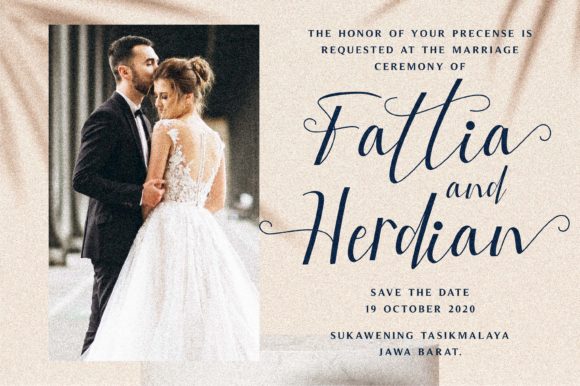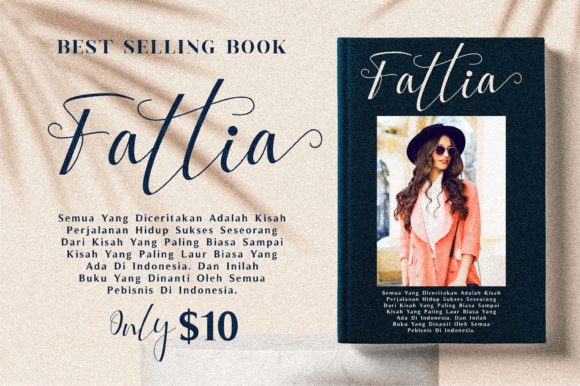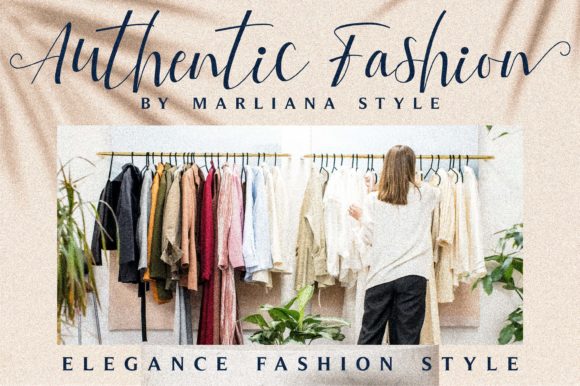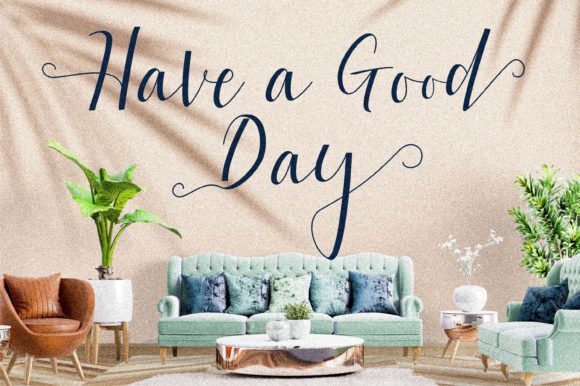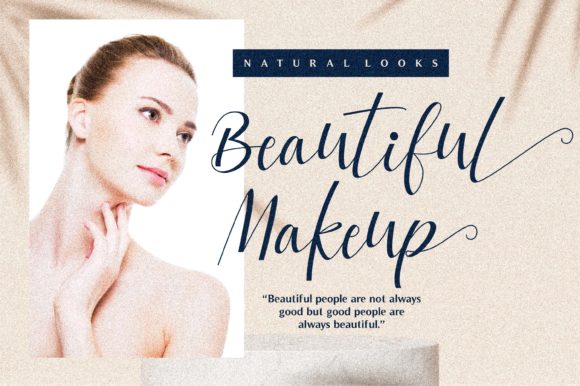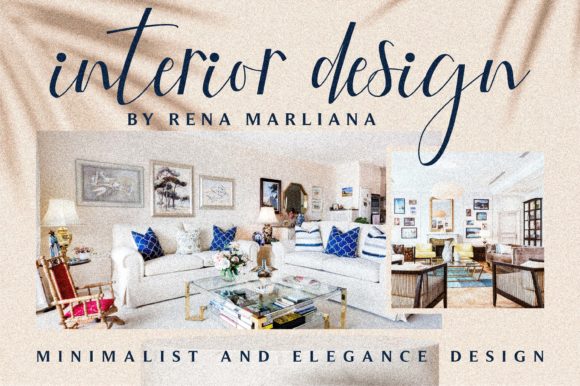
Introduction to Fattia Font
Have you ever stared at a blank page, trying to bring a creative project to life, but struggling to find the perfect font to match your vision? For designers, this is a familiar frustration, and it’s where the Fattia Font comes in – a game-changing solution that will elevate your designs to the next level.
Imagine being able to create stunning, high-quality designs with a customized style that sets you apart from the crowd. With its contemporary atmosphere and impeccable form, inspired by timeless classic calligraphy, the Fattia Font is the perfect design resource for anyone looking to add a touch of sophistication to their work.
Whether you’re working on a wedding invitation, a thank you card, or a greeting card, the Fattia Font is a valuable asset that will make your designs shine. And the best part? It’s PUA encoded, making it easy to access all of the glyphs and swashes with ease, allowing you to create complex designs with a transparent background.
Key Features of Fattia Font
- Fattia Font is a high-quality design resource ideal for creative projects requiring a unique touch.
- Comes in 4 different styles, making it suitable for a wide range of creative projects.
Honest Review: Fattia Font
I recently had the chance to work with the Fattia Font, and I must say it’s been a great addition to my design toolbox. One of the things I appreciate most about this font is its ✨ high quality and crispness, making it perfect for any creative project that requires a clean and modern look.
- ✨ High-quality and crisp font
- ✨ Transparent background for seamless integration
While the Fattia Font is an excellent addition to any design toolbox, I do have a few minor complaints. One of the limitations of this font is that it may not be suitable for very small text sizes, as it can become difficult to read. Additionally, some users may find the font to be a bit too minimalist, which may not be suitable for every design project.
Fattia Font is a high-quality design resource that offers a unique and creative solution for your next project. With its transparent background and versatile style, Fattia Font is perfect for designers looking to add a touch of elegance to their work.
Tips for Getting the Most Out of Fattia Font
To get the most out of Fattia Font, try combining it with other design elements, such as bold lines and bright colors. You can also use Fattia Font to create a sense of depth and dimension in your designs.
Fattia Font is perfect for a variety of design projects, including logos, brochures, and business cards. Its transparent background and high-quality design make it a great choice for designers looking to create visually appealing and professional-looking graphics.